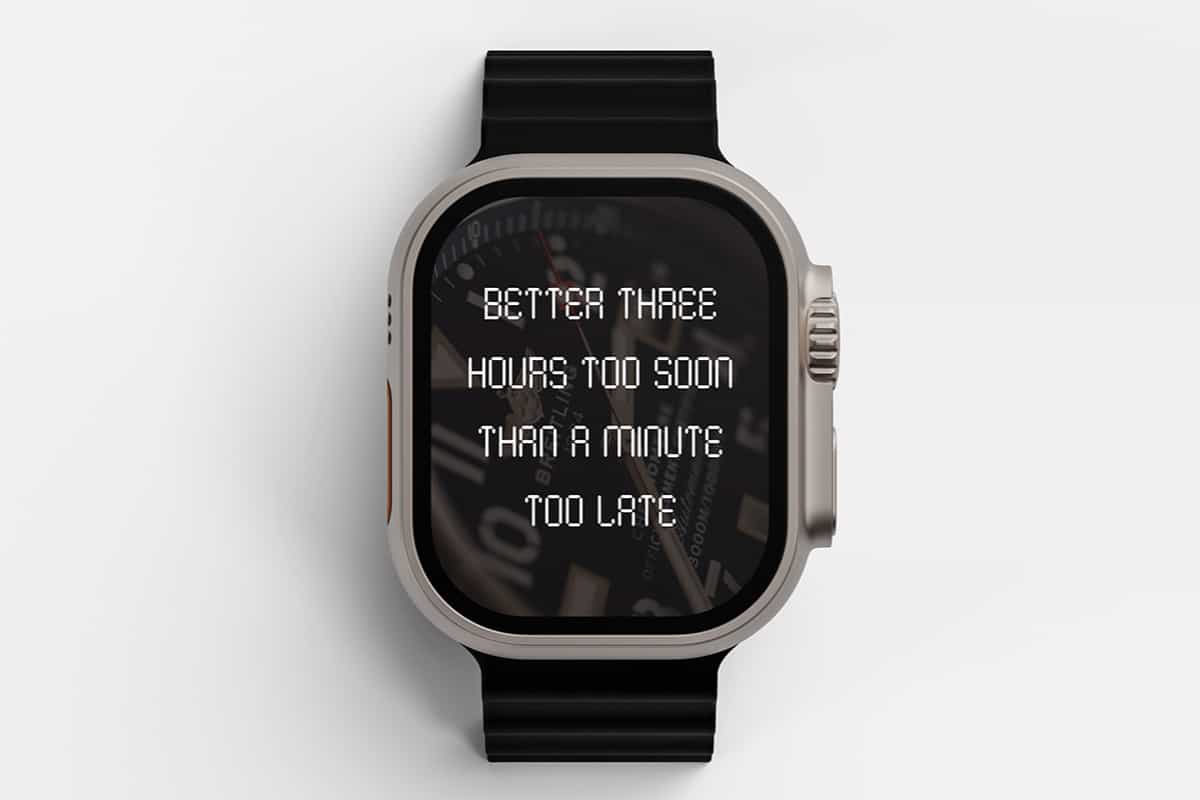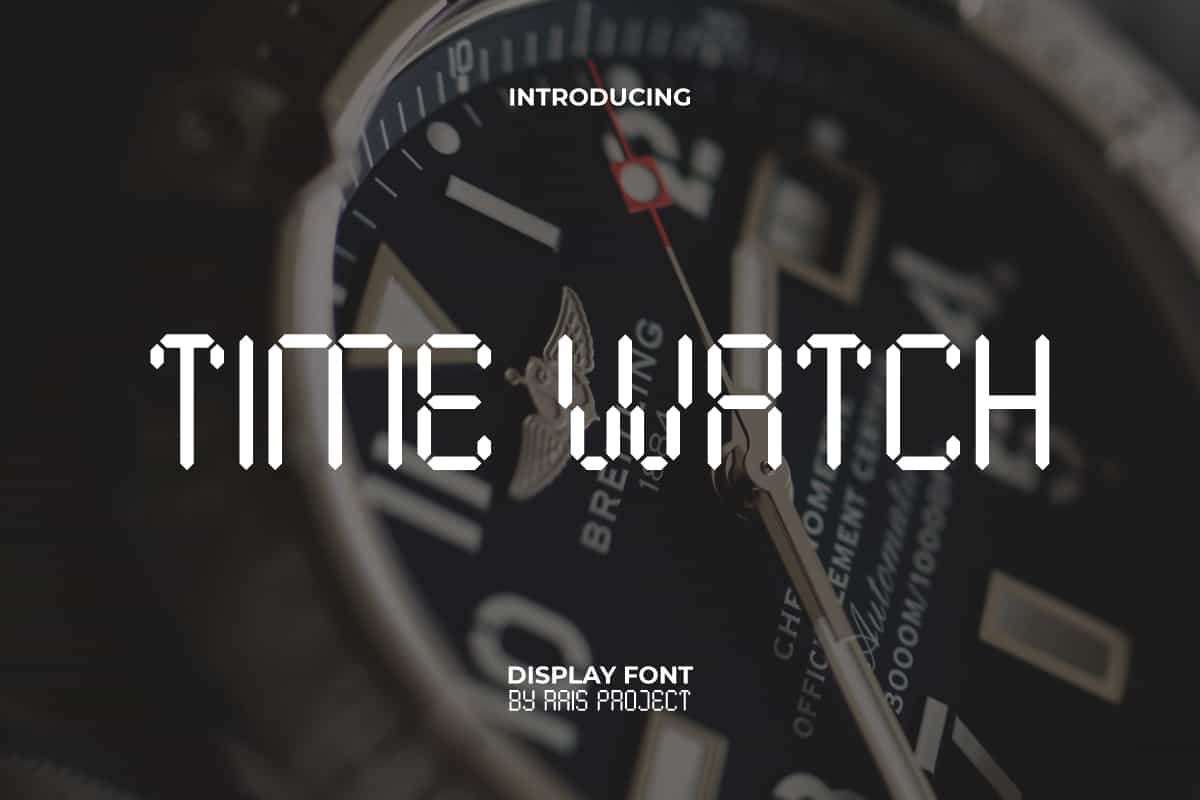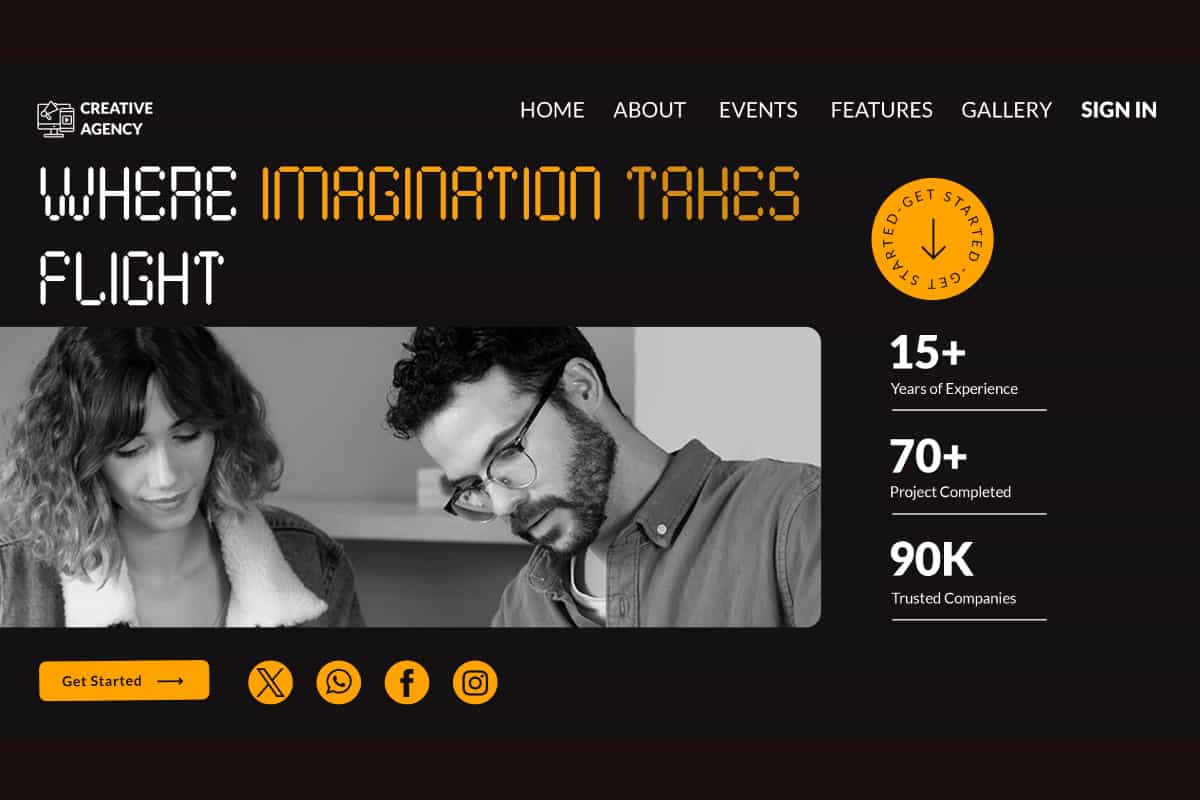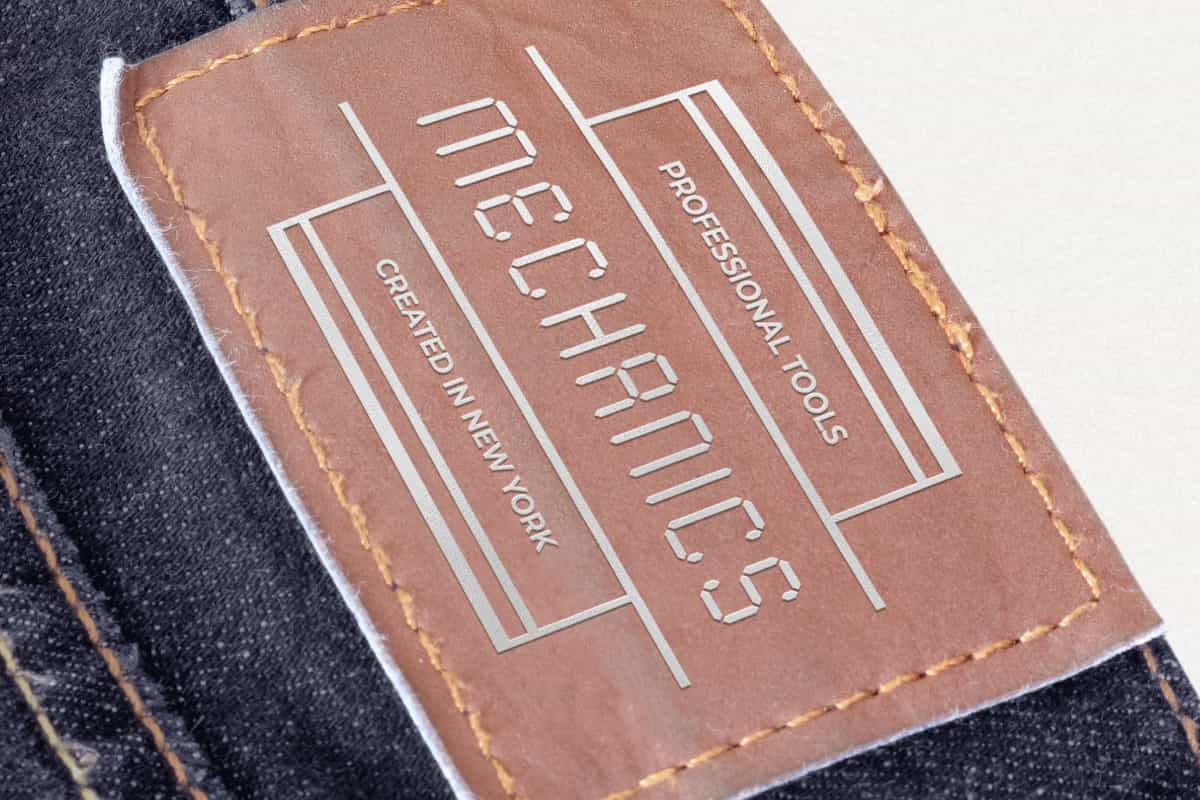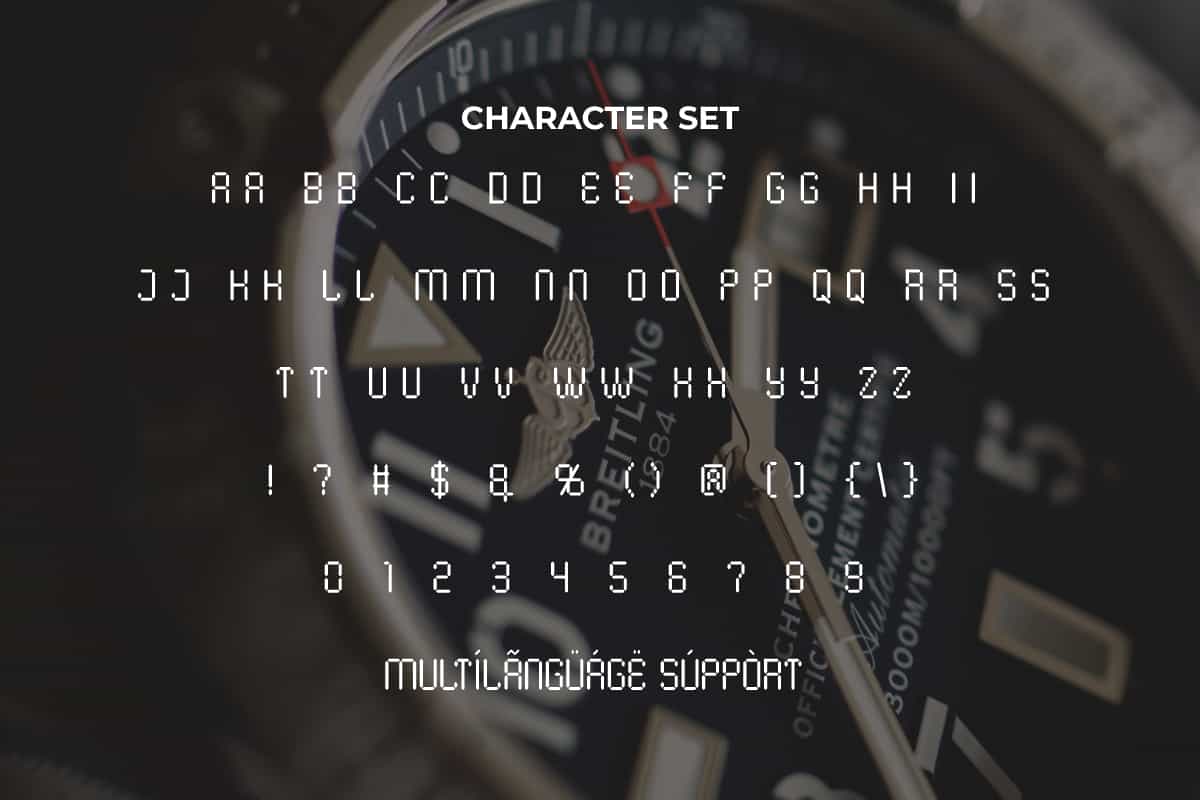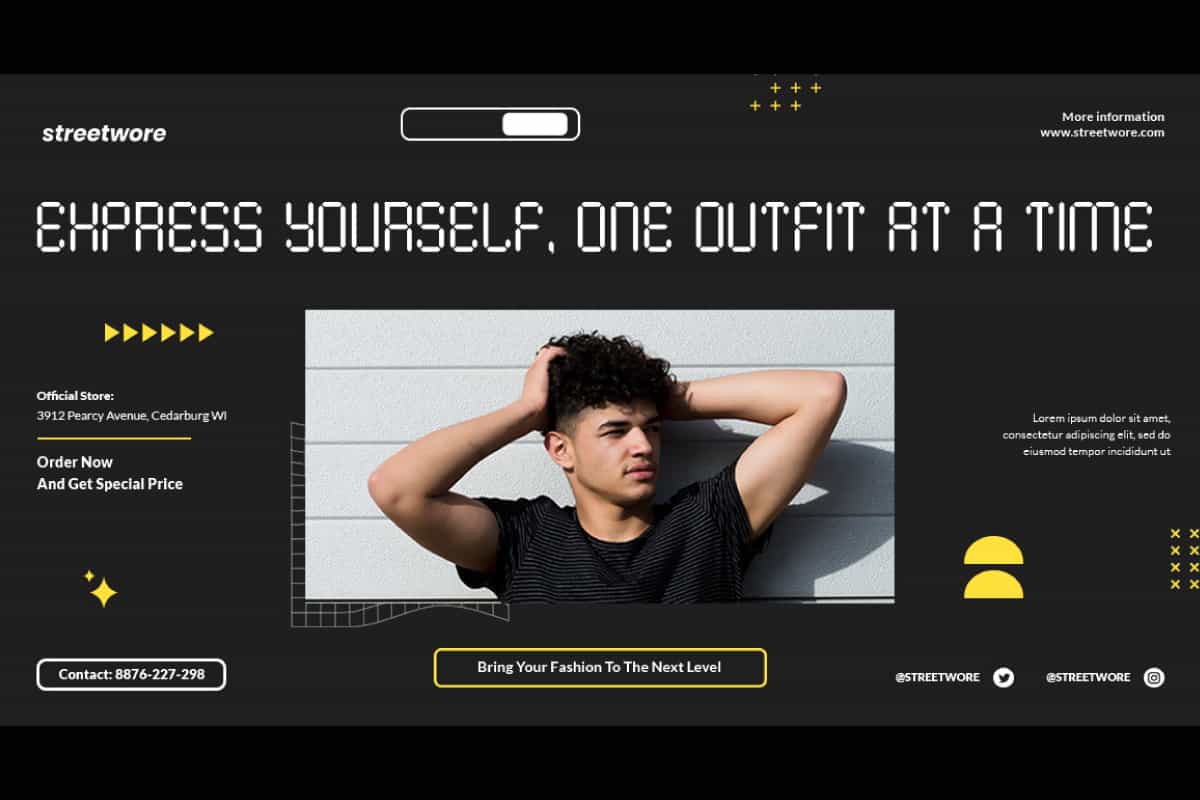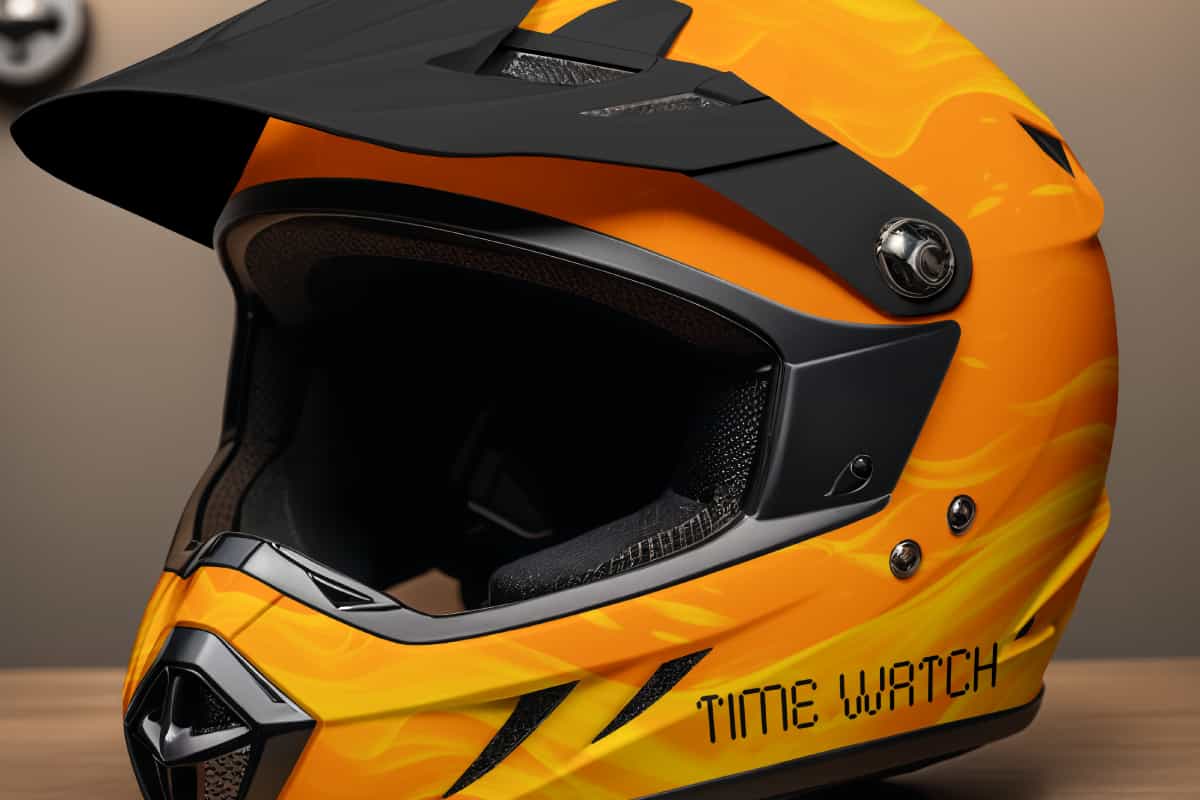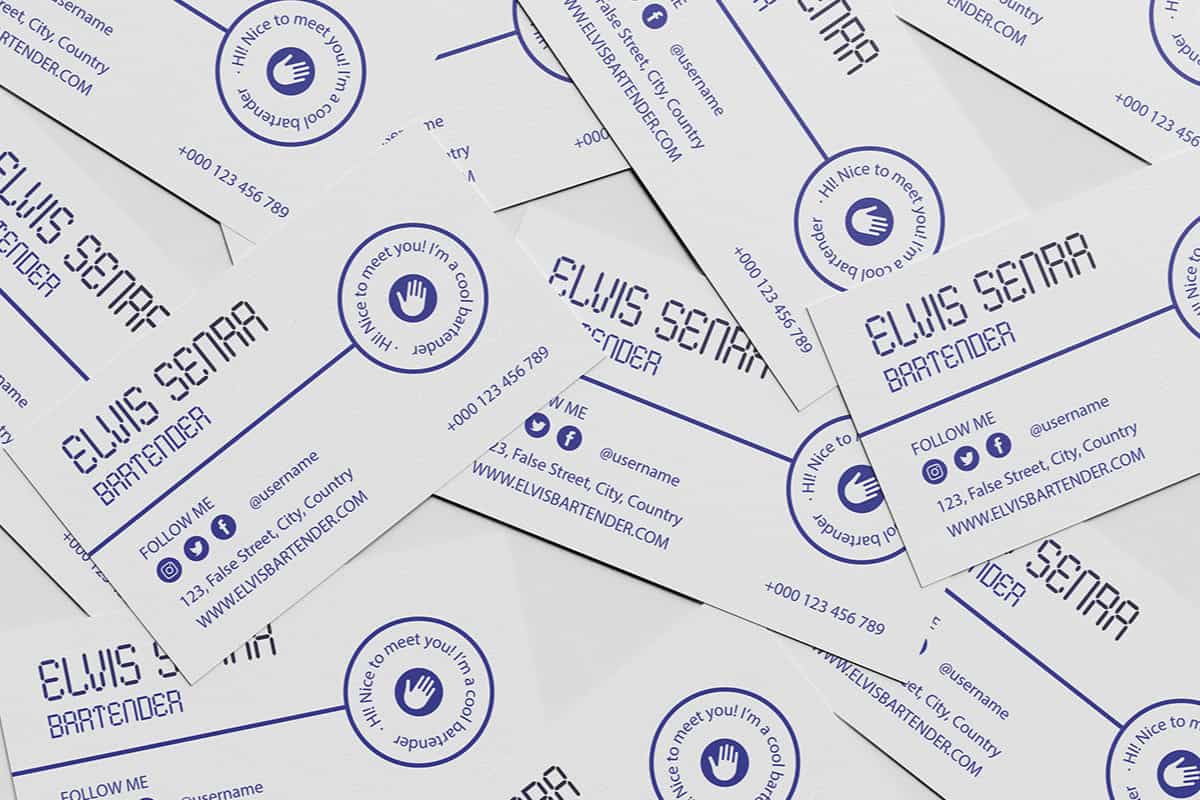
Time Watch Display Font
Time Watch Font is a classic stylish retro timeless analog clock display font style. Create a unique look and be different from the others with this font!
Time Watch Font is a timeless analog clock font display with a classic stylish retro style. The appearance of this display font inspired by the typical and easy to read digital watch style. It will be good for any designs, such as label, invitation, marketing material, product packaging, quotes, signage, website page, and more! You can see the demo font below, input any word you want so you can see what it looks like:
Time Watch Font includes a full set of ALL CAPS for Uppercase and Lowercase Letters, Numerals, and large range of Punctuation. This modern font can paired with other font types so it’s more versatile that will be suitable for various industries, automotive, barber shop, cafe, event or festival, fashion, game, photography, printing, publishing, etc. What you get: